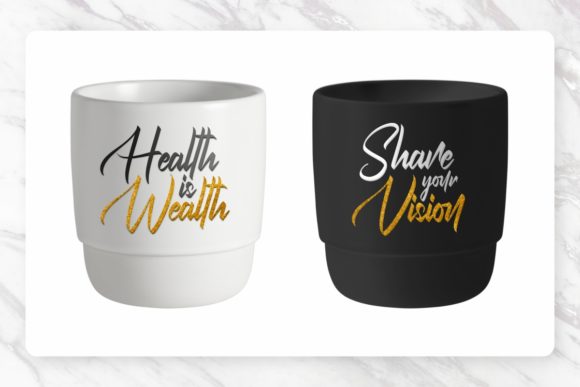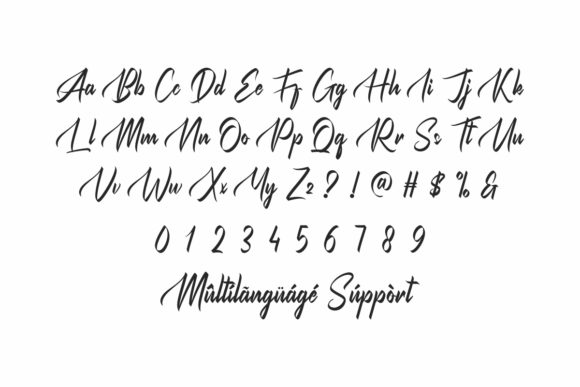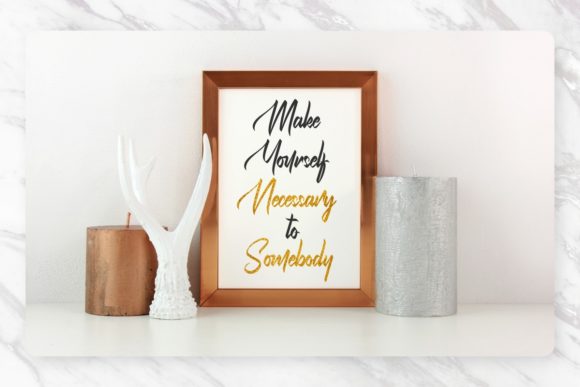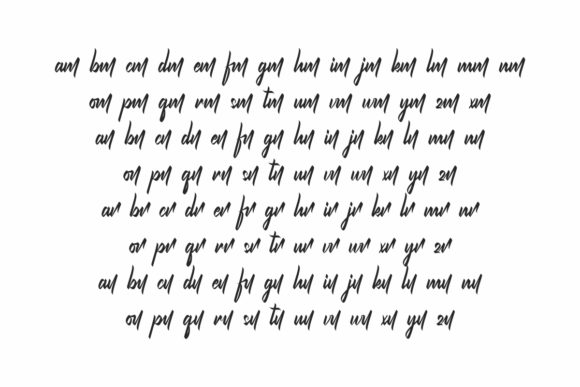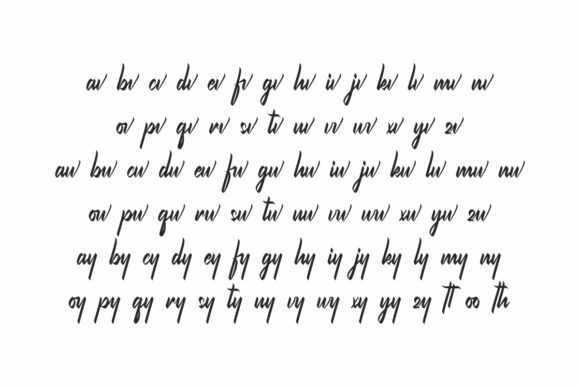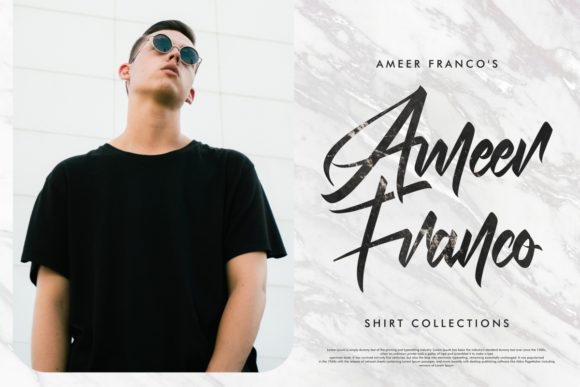
The Fracktion Font: A Fun and Modern Handwritten Delight
Have you ever been in the middle of a crafting project, pouring your heart and soul into it, only to realize that it’s missing that special something? For me, that something was a font that could add a personal touch to my designs. I was working on a handmade card for a friend’s birthday, and I just couldn’t seem to find the right font to make it feel truly special. That’s when I stumbled upon the Fracktion font, and let me tell you, it’s been a game-changer ever since! 🎉
A Personal Review: What I Love About Fracktion
So, what makes Fracktion so special? Here are a few things that I absolutely love about this font:
- ✨ Modern and Fun: Fracktion is a super modern and fun handwritten font that adds a touch of personality to any project.
- ✅ PUA Encoded: This font is PUA encoded, which means that you can access all of the glyphs and swashes with ease!
- 💫 Highly Versatile: Whether you’re working on a crafting project, a branding design, or just a fun DIY project, Fracktion is the perfect choice.
While Fracktion is an amazing font, there are a few small quirks to be aware of:
- 🤔 Some Swashes May Not Work in All Programs: While Fracktion is PUA encoded, some swashes may not work properly in certain programs. Don’t worry, this is easy to work around!
- ⚠️ May Require Some Font Knowledge: To get the most out of Fracktion, you’ll need to have some basic knowledge of font usage and OpenType features.
A Practical Guide to Using Fracktion
The Story Behind Fracktion
Fracktion was designed by a team of creatives who wanted to create a font that was both fun and modern. With its unique blend of handwritten and digital elements, Fracktion is the perfect choice for anyone looking to add a personal touch to their designs.
| What is PUA encoding? | PUA (Private Use Area) encoding is a way of encoding fonts that allows for extra glyphs and swashes to be included. |
| Is Fracktion suitable for body text? | While Fracktion is a beautiful font, it’s best suited for headlines and titles rather than body text. |